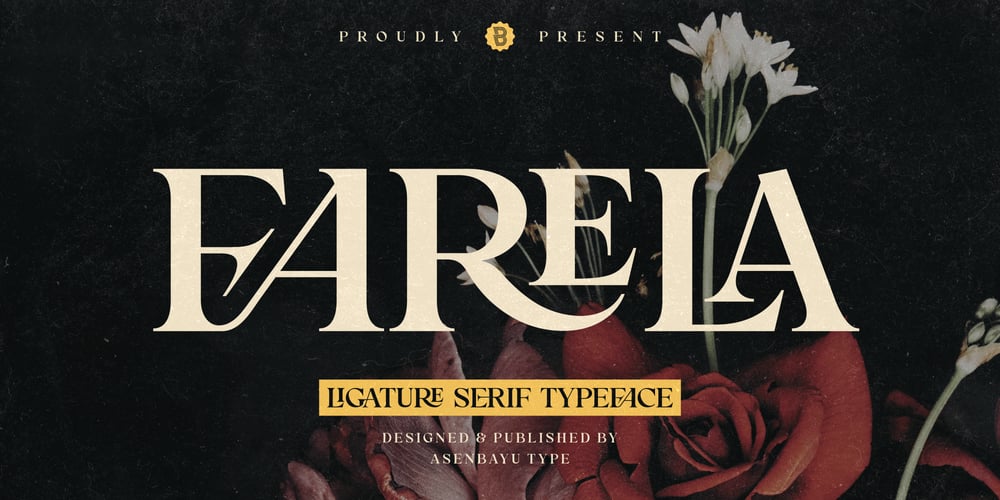
Farela Font Family was designed by Bayu Noor Witarsa and published by Asenbayu. Farela contains 1 styles and family package options. The Farela font is a serif ligature font that has an attractive elegant appearance. You can use this font in vintage, classic, and retro designs. This font gives a beautiful, classy and luxurious feel to your designs. This font is perfect for projects such as logos, branding, fashion, magazines, labels, posters, album covers and many more. This font features Open Type Format, Kerning, Ligature Style, Alternative Style, Numeral, Symbol and Multilingual Supports.Note: To use the alternate and ligature features, please look in the Glyph Panel / Character Map in your software to be able to access all the glyphs in this font. The ligature style in this font is simply “Standard Ligature”, meaning it appears automatically. To set your desired letter binding, you can block letters or add them from the glyph panel. Thank you!